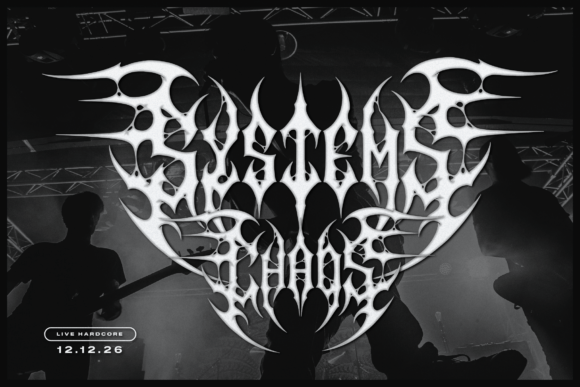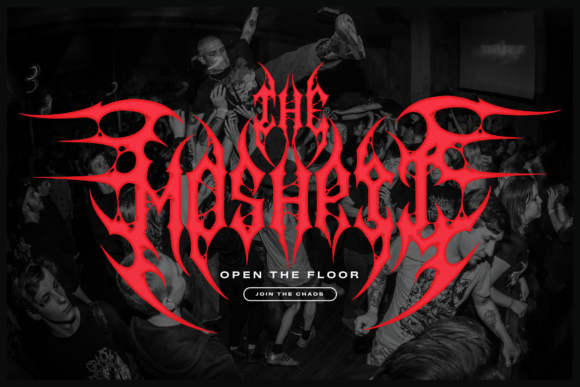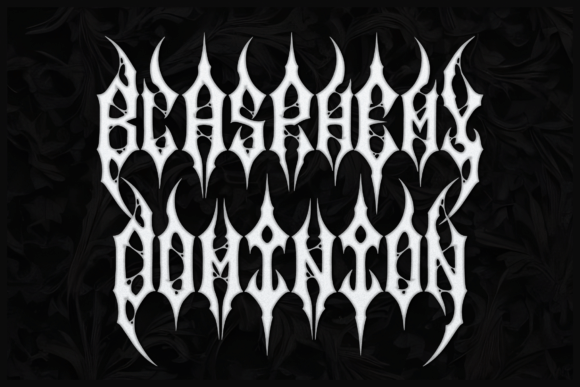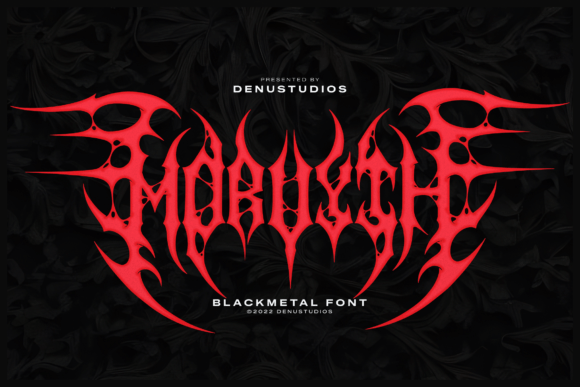
Introduction to Morvyth Font
Morvyth is a raw, aggressive, and masterfully crafted typeface designed for the darkest corners of graphic design.
This Morvyth font captures the chaotic energy of extreme music scenes, featuring sharp, thorn-like terminals and organic, melting textures that evoke a sense of controlled carnage Perfect for band logos, album art, and streetwear , the Morvyth typeface demands immediate attention.